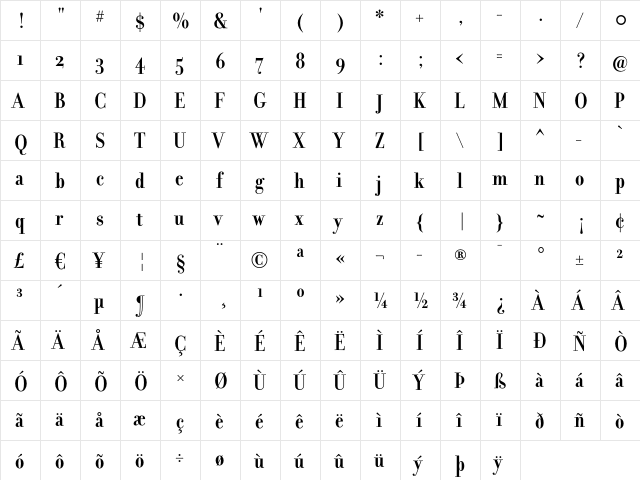
Filosofia Grand OT Bold
| Foundry | (C) Emigre Inc., Designed by Zuzana Licko |
| Designer | Zuzana Licko |
Design Context for Filosofia Grand OT Typeface
Filosofia Grand OT offers clean, dependable letterforms without strong stylistic allegiance, making it a practical choice for designers who need flexibility. Its bold stroke weight gives it real presence on the page.